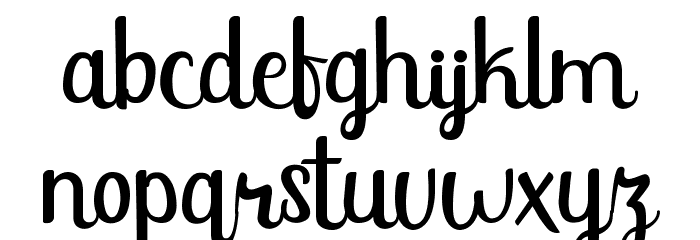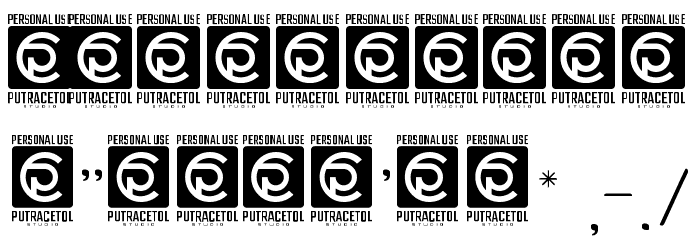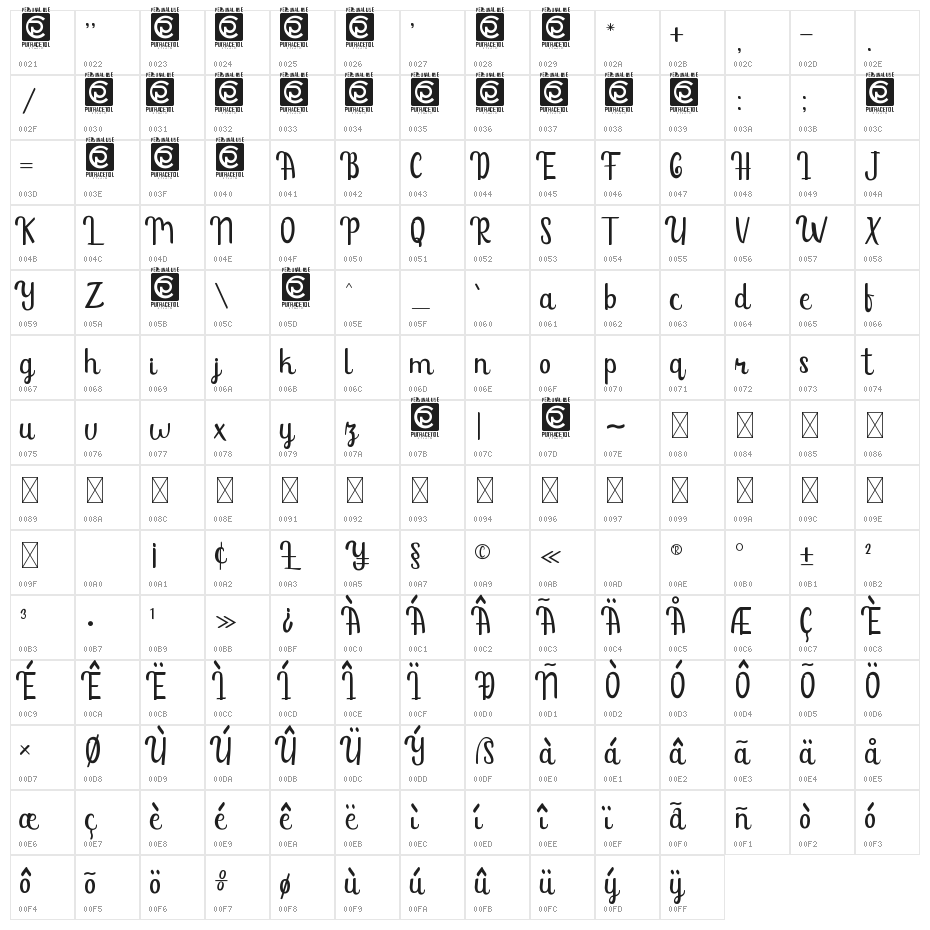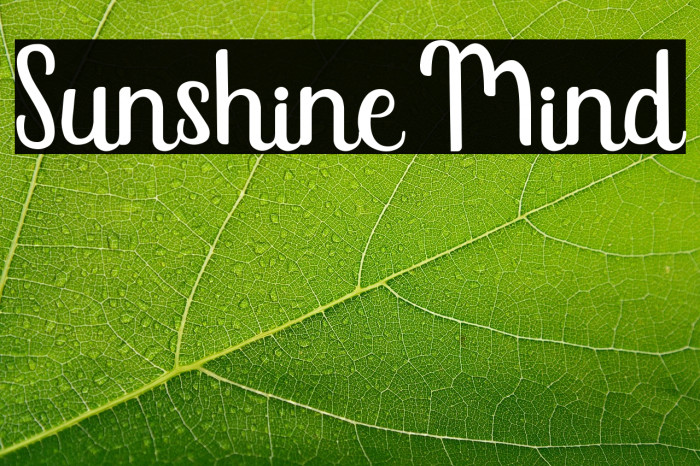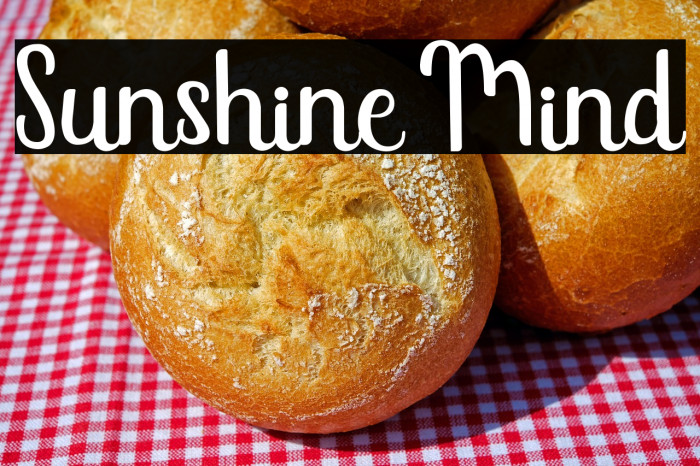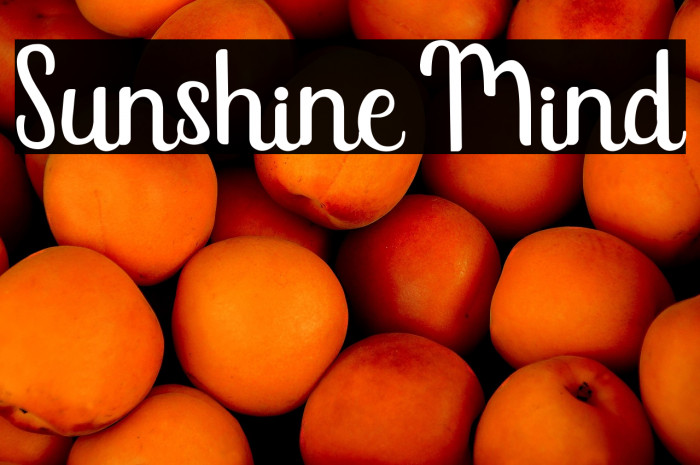
Sunshine Mind Font
This font features a playful and whimsical design with a handwritten script style. The letters are characterized by smooth, flowing curves and a casual, informal appearance. The uppercase letters are tall and slightly narrow, while the lowercase letters maintain a consistent height with gentle loops and swirls. The font includes a full set of uppercase and lowercase letters, numbers, and a selection of special characters. It exudes a friendly and approachable vibe, making it suitable for creative and fun projects.
A playful, handwritten script font with smooth curves and a casual style.
- Proposed Projects: Ideal for greeting cards, invitations, children's books, and playful branding projects.
- Overall Style: Casual and playful
- Use Case: Headlines, Logos, Invitations